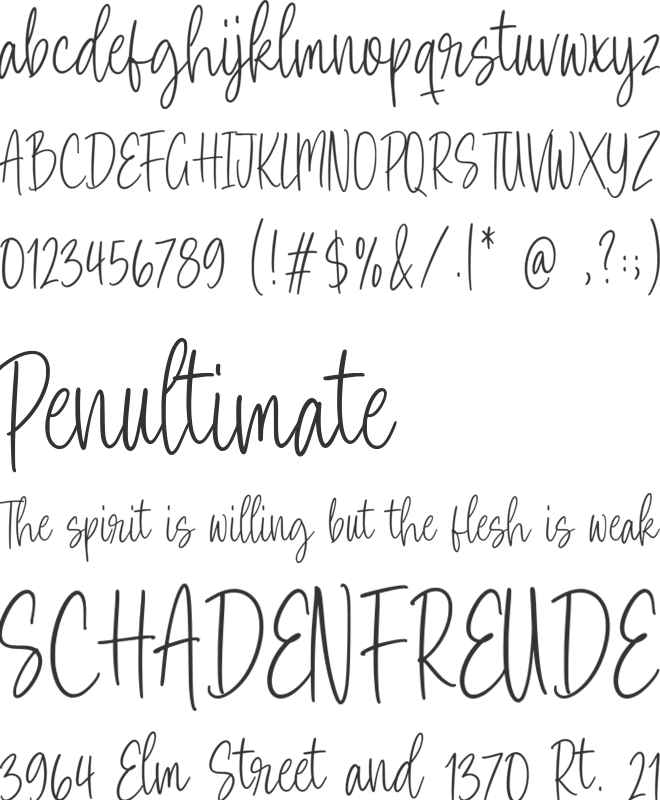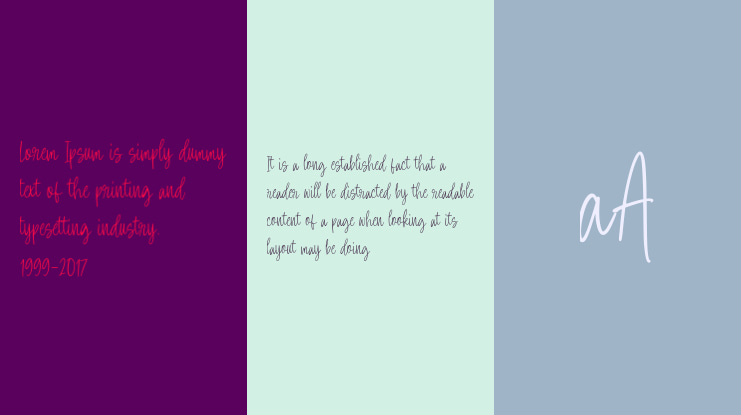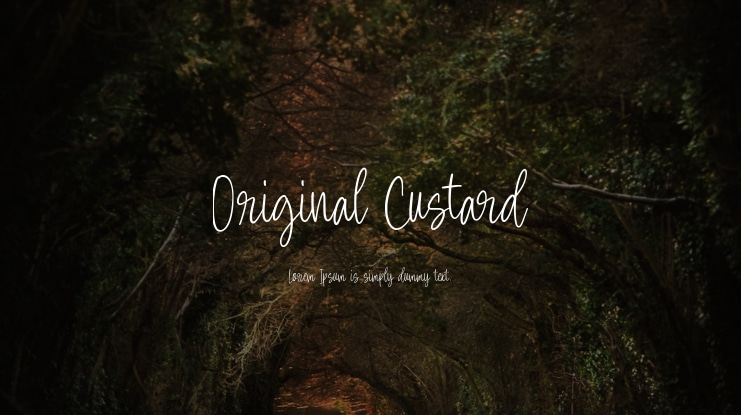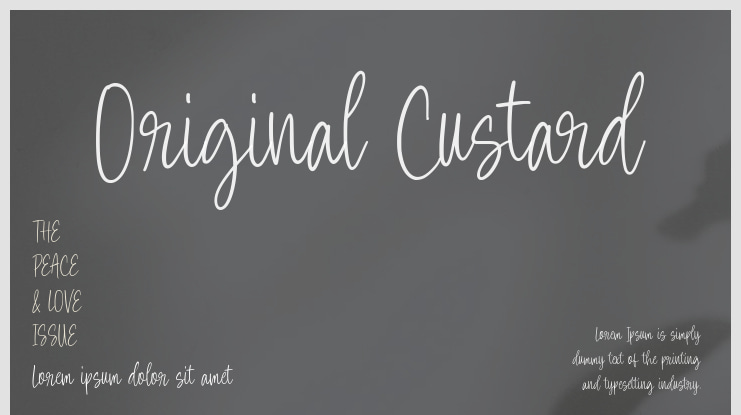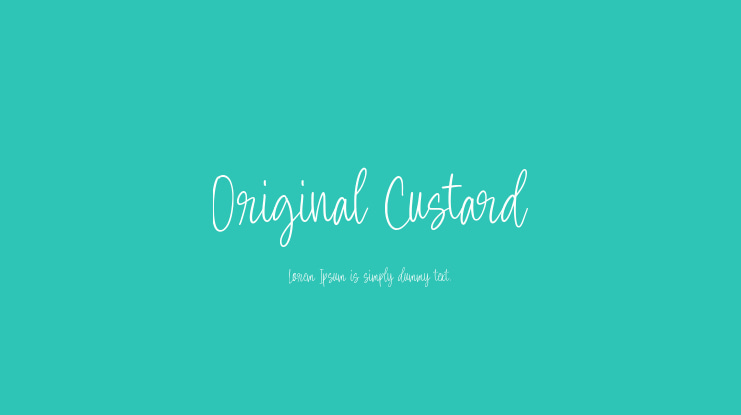
Original Custard Font
Introducing Original Custard, a contemporary handwritten font designed to elevate your creative projects!
Meticulously crafted with precision and care, this font offers exceptional versatility suitable for various design endeavors such as logos, branding, invitations, and beyond.
Its chic, hand-drawn aesthetic imbues it with a distinctive charm that is bound to leave a lasting impression.